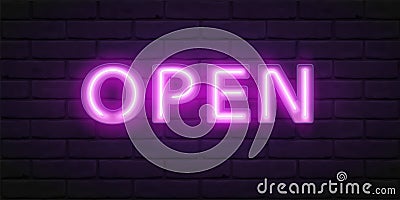
Glowing violet neon script OPEN. Vector font for typography design. Bright font with fluorescent tubes in boxing #181265403
Glowing violet neon script OPEN. Vector font for typography design. Bright font with fluorescent tubes in boxing. Lettering illustration for design of sign on the door of shop, bar restaurant. eps10